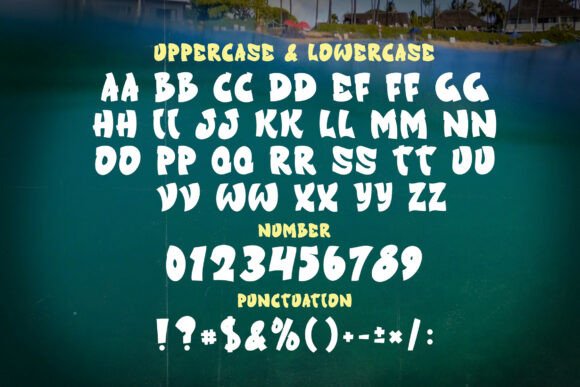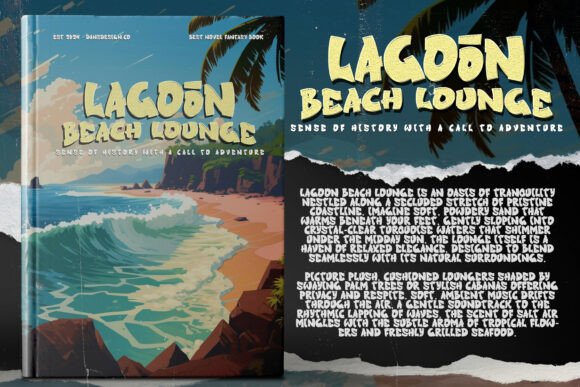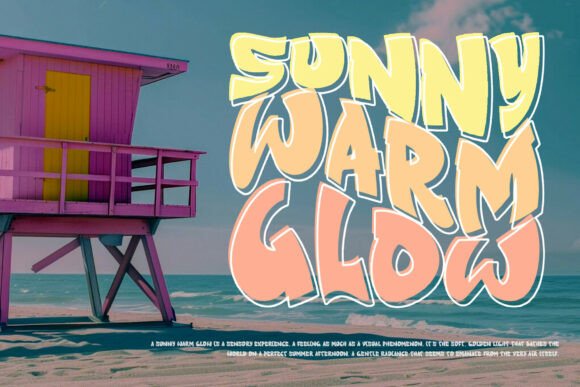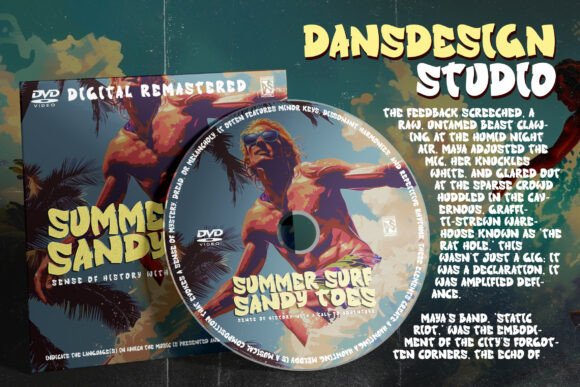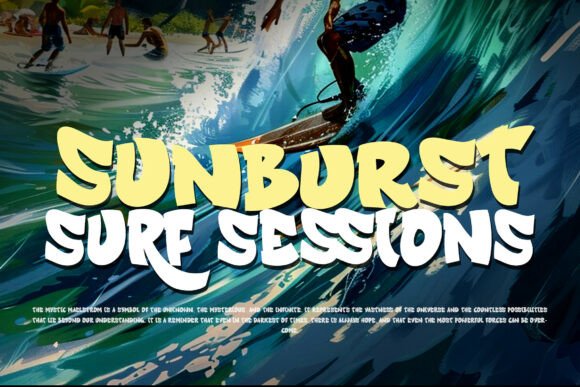
Introduction to Mood Klaus Font
Mood Klaus – Fun Display Font for Kids, Summer, and Creative Projects Mood Klaus is a bold and playful display font with a retro cartoon vibe.
Its chunky shapes and bouncy curves give every word a cheerful, hand-drawn feel Perfect for kids posters, summer flyers, fun packaging, and creative branding.
Key Features of Mood Klaus Font
Why Choose Mood Klaus Font?
Mood Klaus Font offers exceptional quality and versatility, making it a valuable addition to your design toolkit. Whether you’re creating for personal projects or commercial use, Mood Klaus Font delivers professional results.